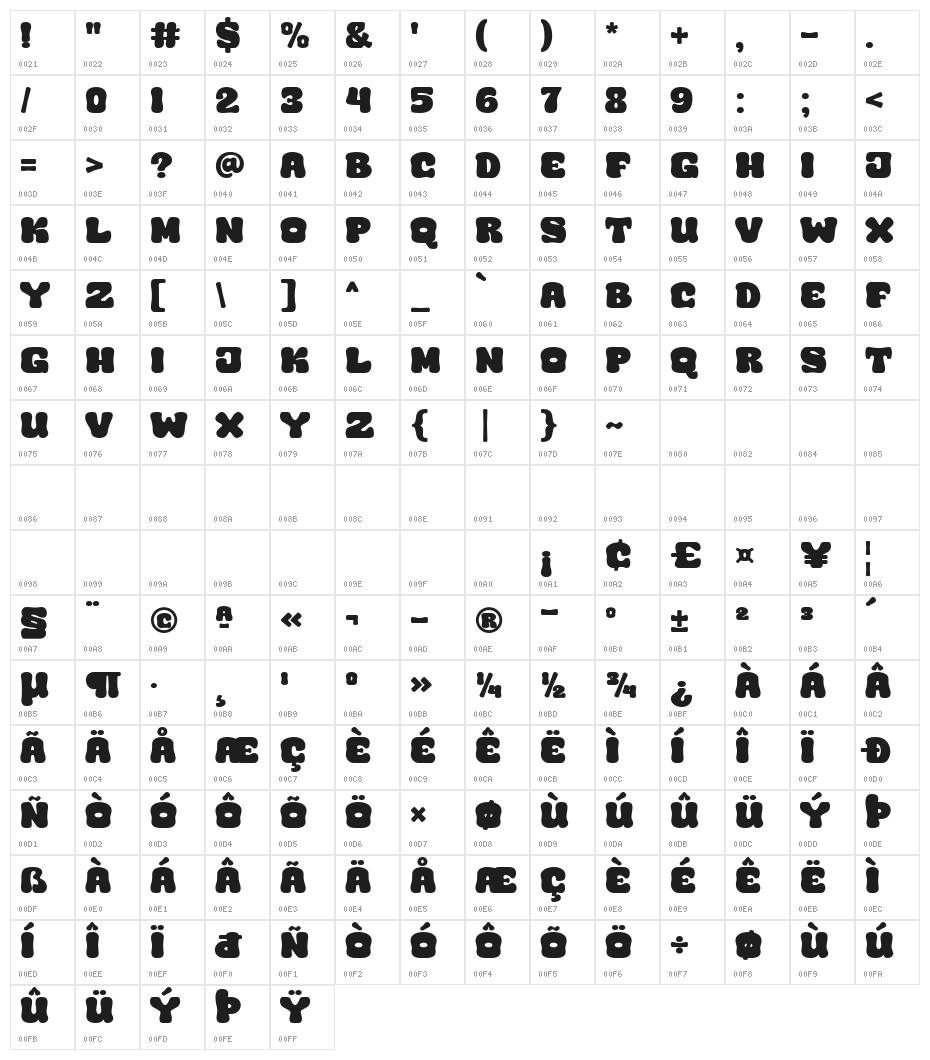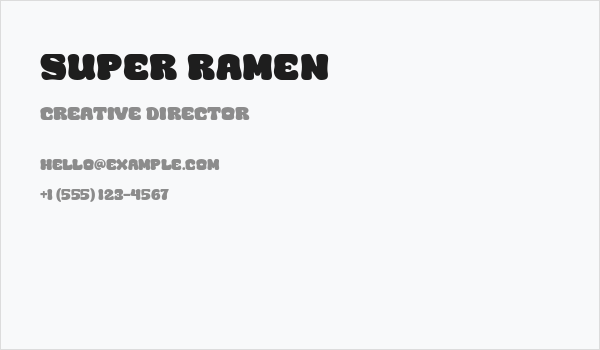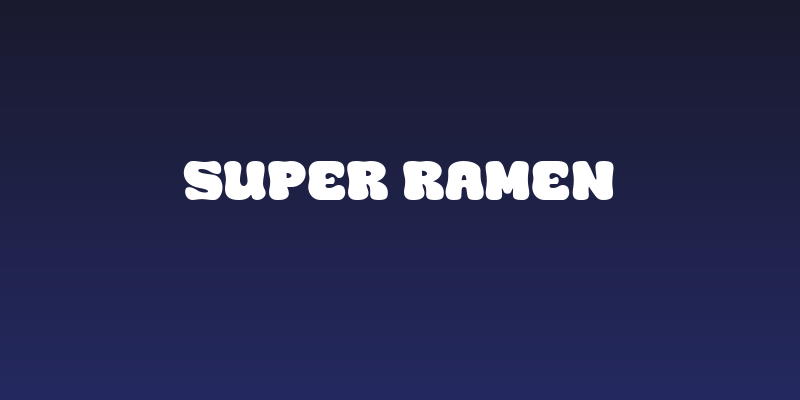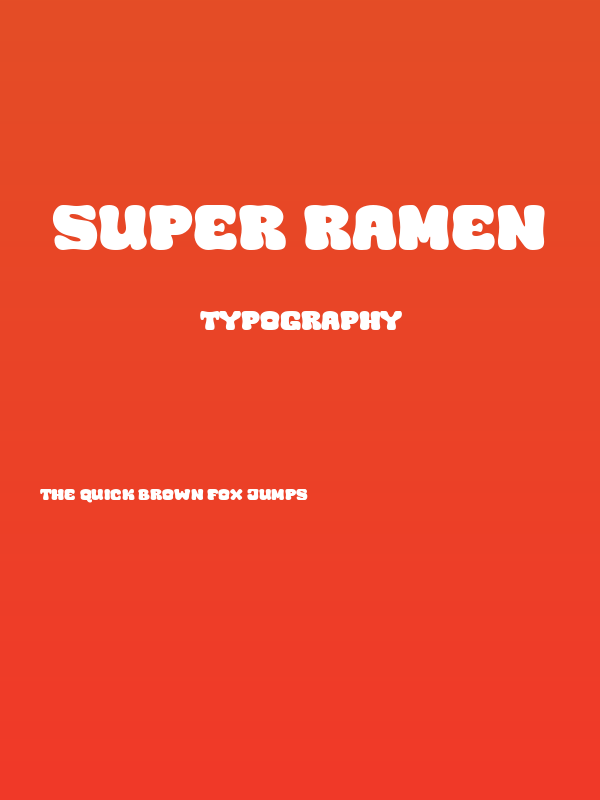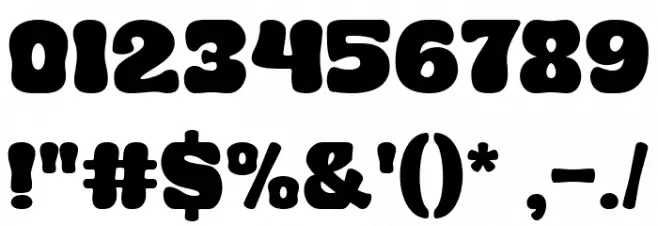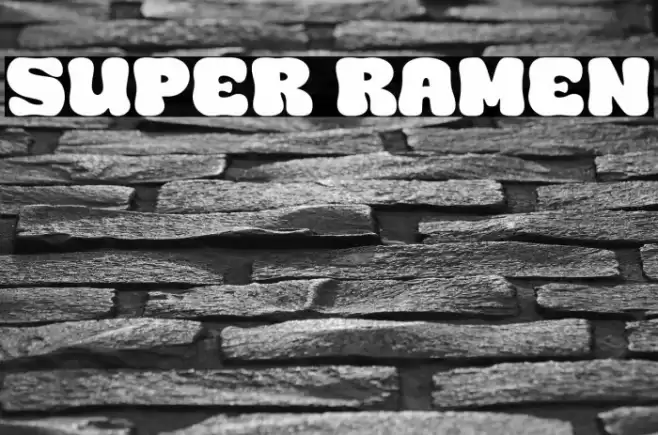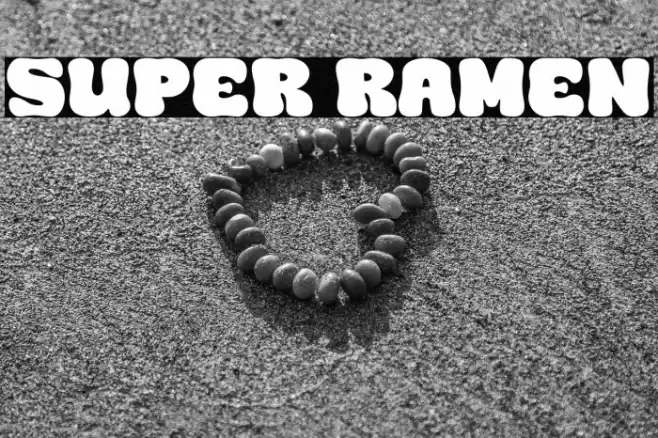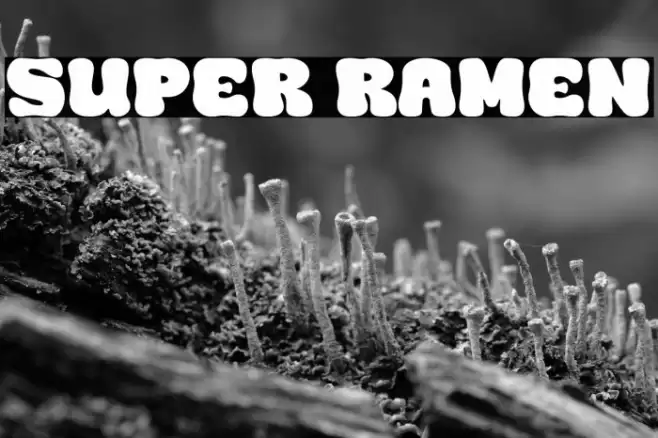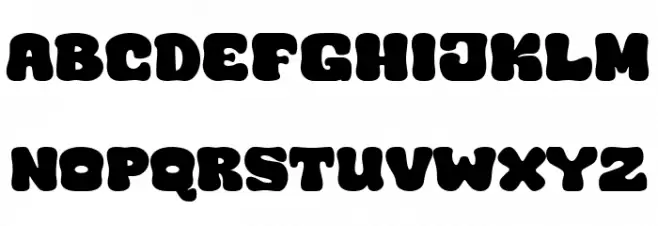
Super Ramen Font
Super Ramen Description
This font features a bold, playful style with rounded edges and a bubbly appearance. The characters are thick and have a uniform stroke width, giving them a strong presence on the page. The design is reminiscent of retro or comic styles, making it ideal for projects that require a fun and lively aesthetic. The uppercase and lowercase letters maintain a consistent weight, and the numbers and special characters are designed to match the overall playful theme. This font is perfect for creating eye-catching headlines, posters, or branding materials that aim to convey a sense of joy and creativity.
| Overall Style | Playful, Retro, Comic |
| Use Case | Headlines, Posters, Branding |
| Proposed Projects | Ideal for children's books, comic strips, playful branding, and event posters. |